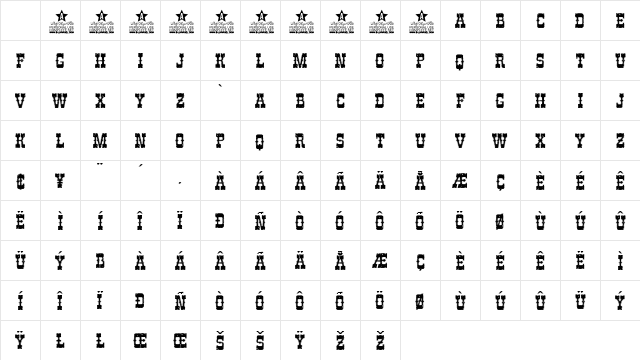
Complete TIMEMACHINE HALLOWEEN PERSONAL Bold glyph index. Displaying only characters natively supported by TIMEMACHINE HALLOWEEN PERSONAL Bold font.
TIMEMACHINE HALLOWEEN PERSONAL is a composed and adaptable typeface that performs quietly and consistently across a wide range of design contexts. Its bold stroke weight gives it real presence on the page.